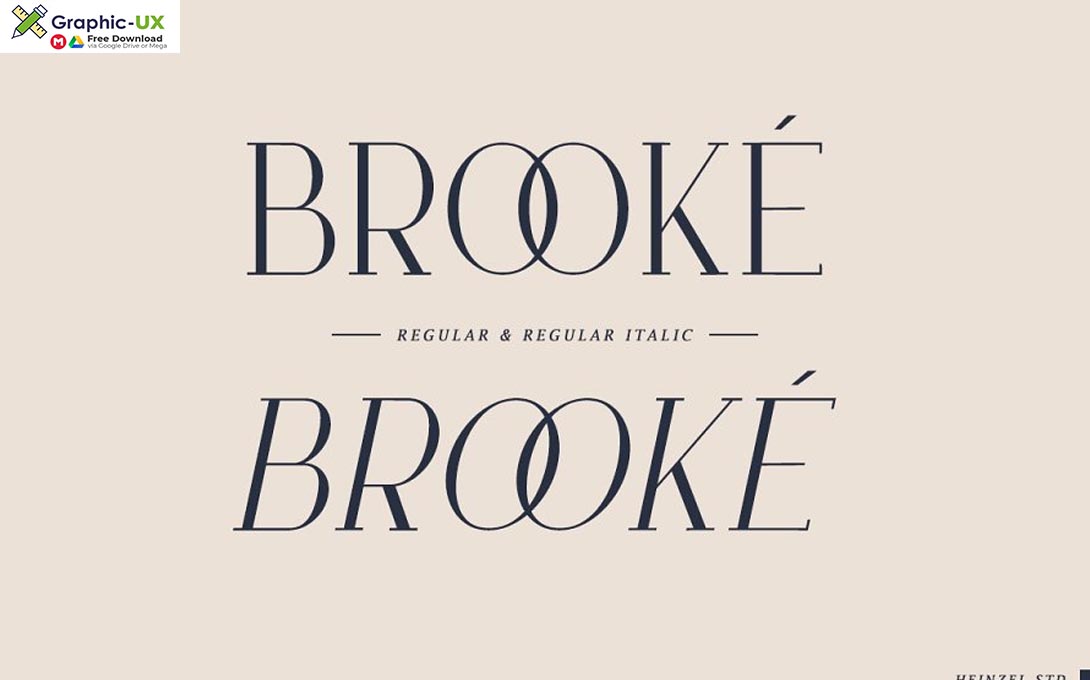
Brooké Font
Brooké – Modern Serif and minimalist character! Brooké perfect use for logos, print, collage, body text, and more! It looks minimalist a really cool modern-meets-vintage look to any piece.
- Brooké, Regular and Italic version, serif font (ALL CAPS), numerals and more punctuations.
- Multilingual support for various languages